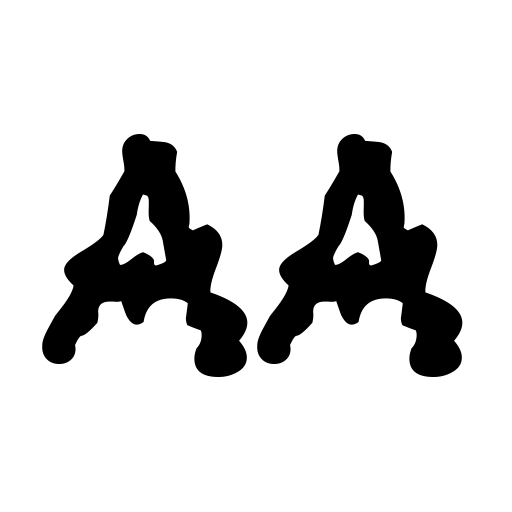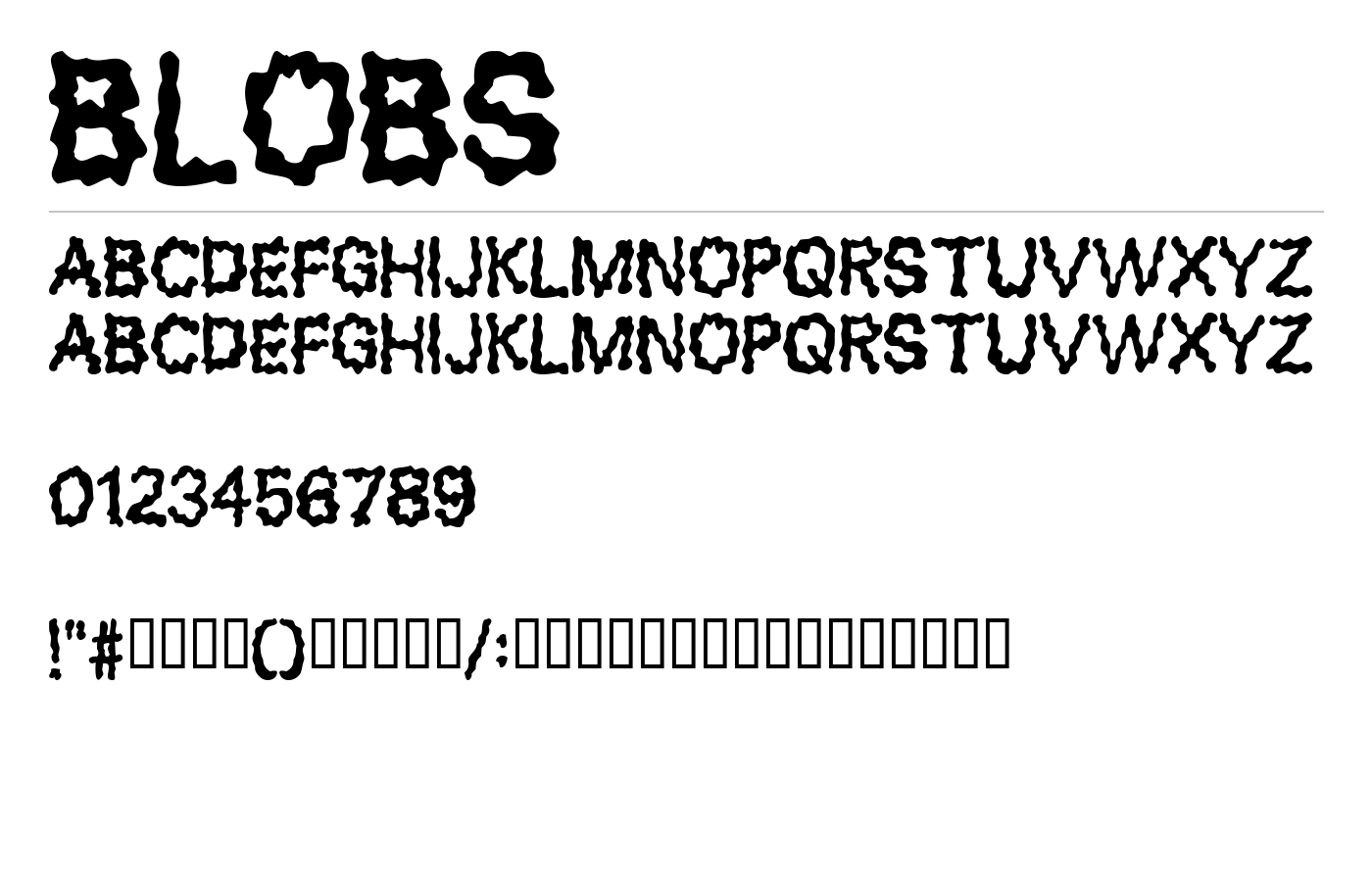
Blobs Font is a quirky and playful sans serif typeface characterized by its irregular, organic shapes that resemble dripping or melted blobs. With its bold weight, uneven edges, and lively character structure, it brings a fun, informal vibe that’s perfect for creative projects, children’s graphics, or anything needing a unique, eye-catching personality. This font works best in headlines, posters, and branding that aims to stand out with a charming, unconventional style.
Blobs Font